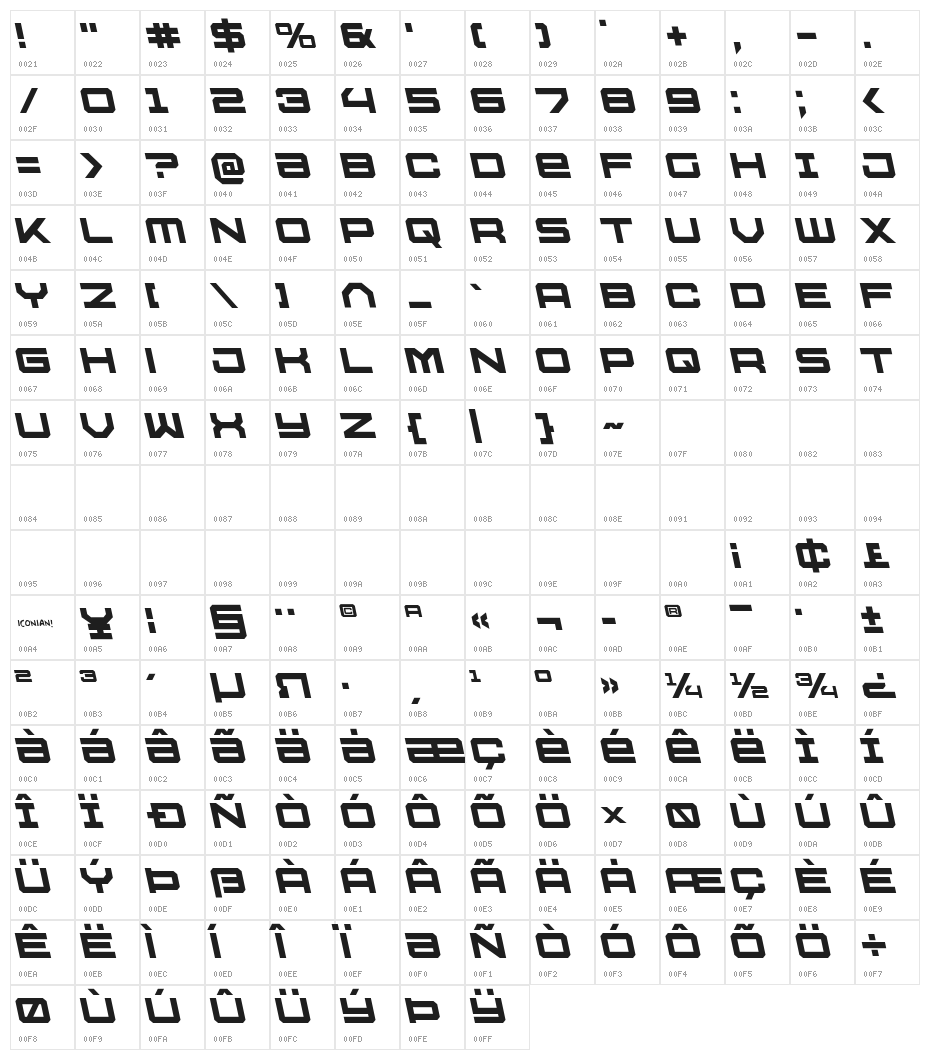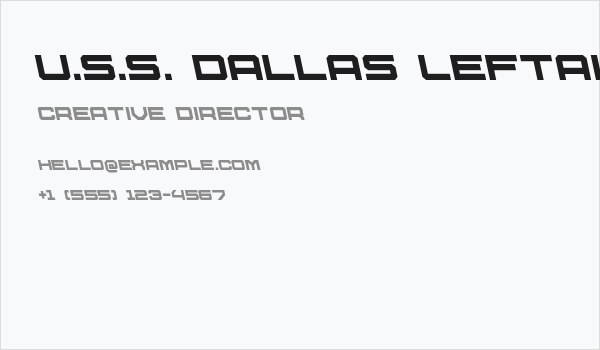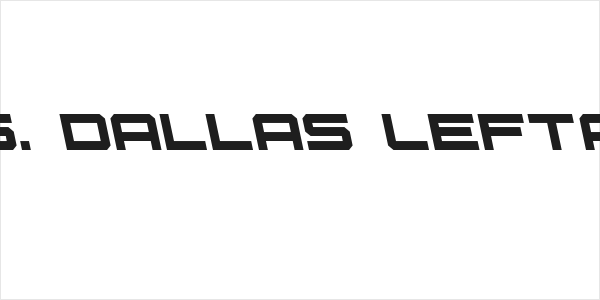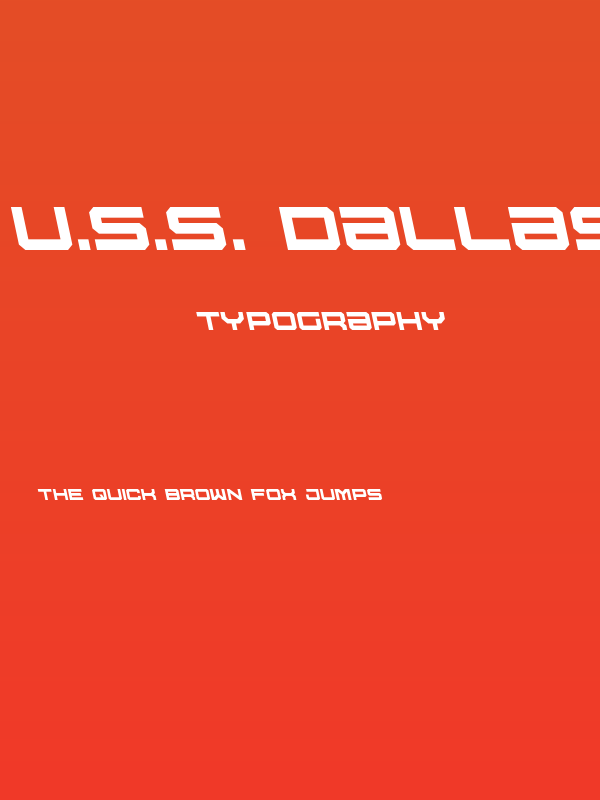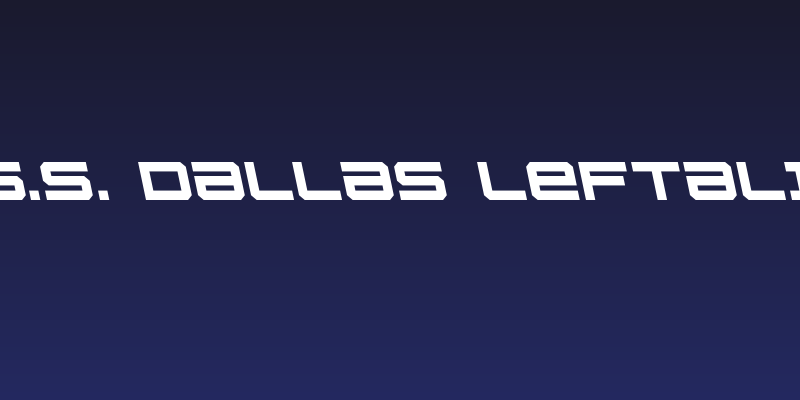
U.S.S. Dallas Leftalic Font
U.S.S. Dallas Leftalic Description
This font features a bold, angular design with a futuristic and industrial aesthetic. The characters are slightly slanted, giving a sense of motion and dynamism. The strokes are thick and consistent, providing a strong visual impact. The geometric shapes and sharp edges contribute to a modern and technical appearance. This style is well-suited for projects that require a bold statement or a high-tech feel. The numbers and special characters maintain the same angular and robust design, ensuring consistency across all elements.
| Proposed Projects | Ideal for technology branding, video game titles, sci-fi movie posters, and industrial-themed designs. |